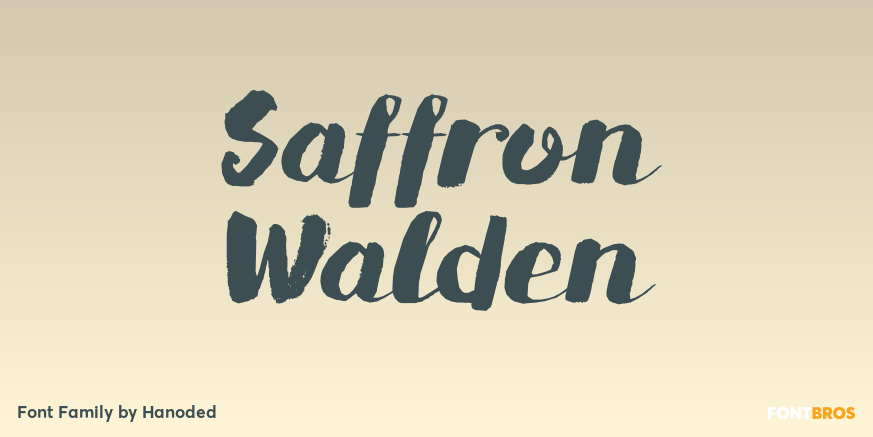
Saffron Walden
About Saffron Walden
Saffron Walden is a small market town in Essex, England. When I created my first ever connected script font, I decided that a ?flowery? name would be best (since that seems to be the most popular choice for connected fonts?.). Saffron Walden is a fattish,…